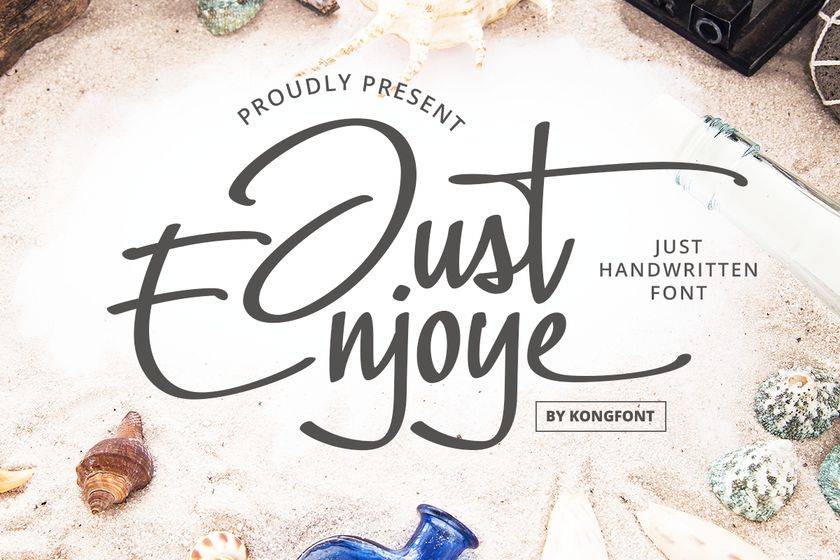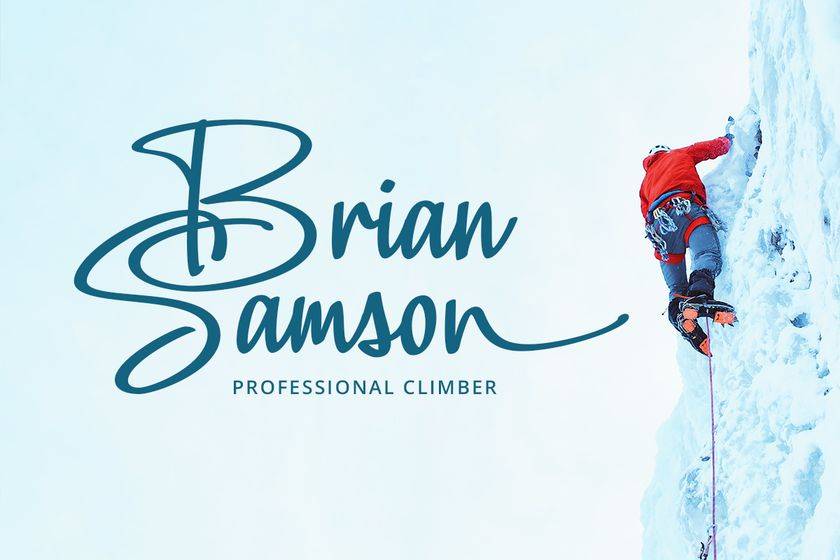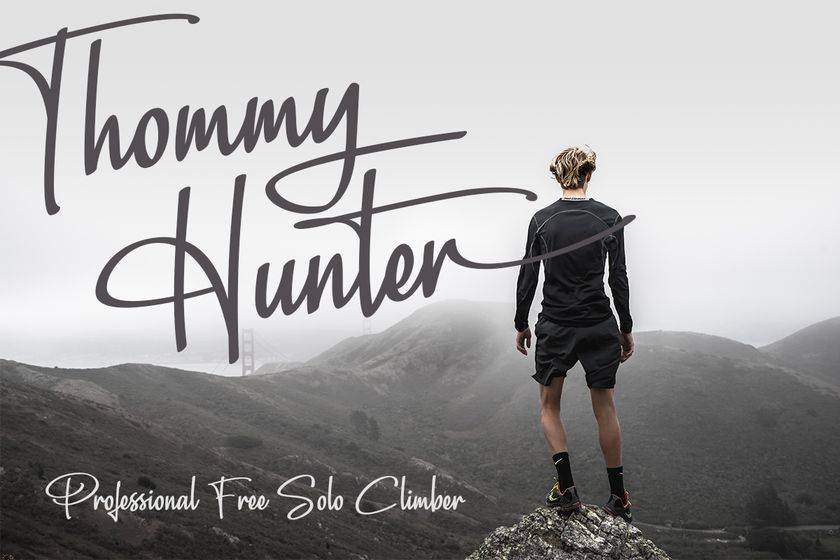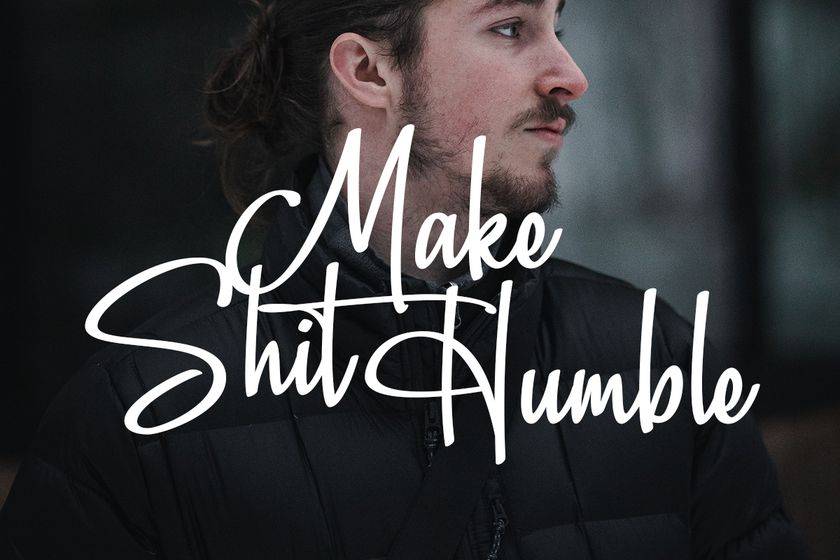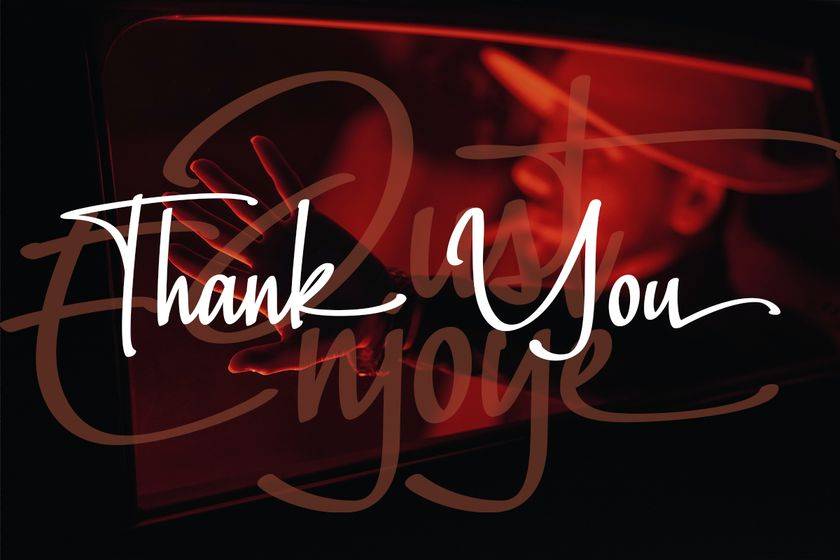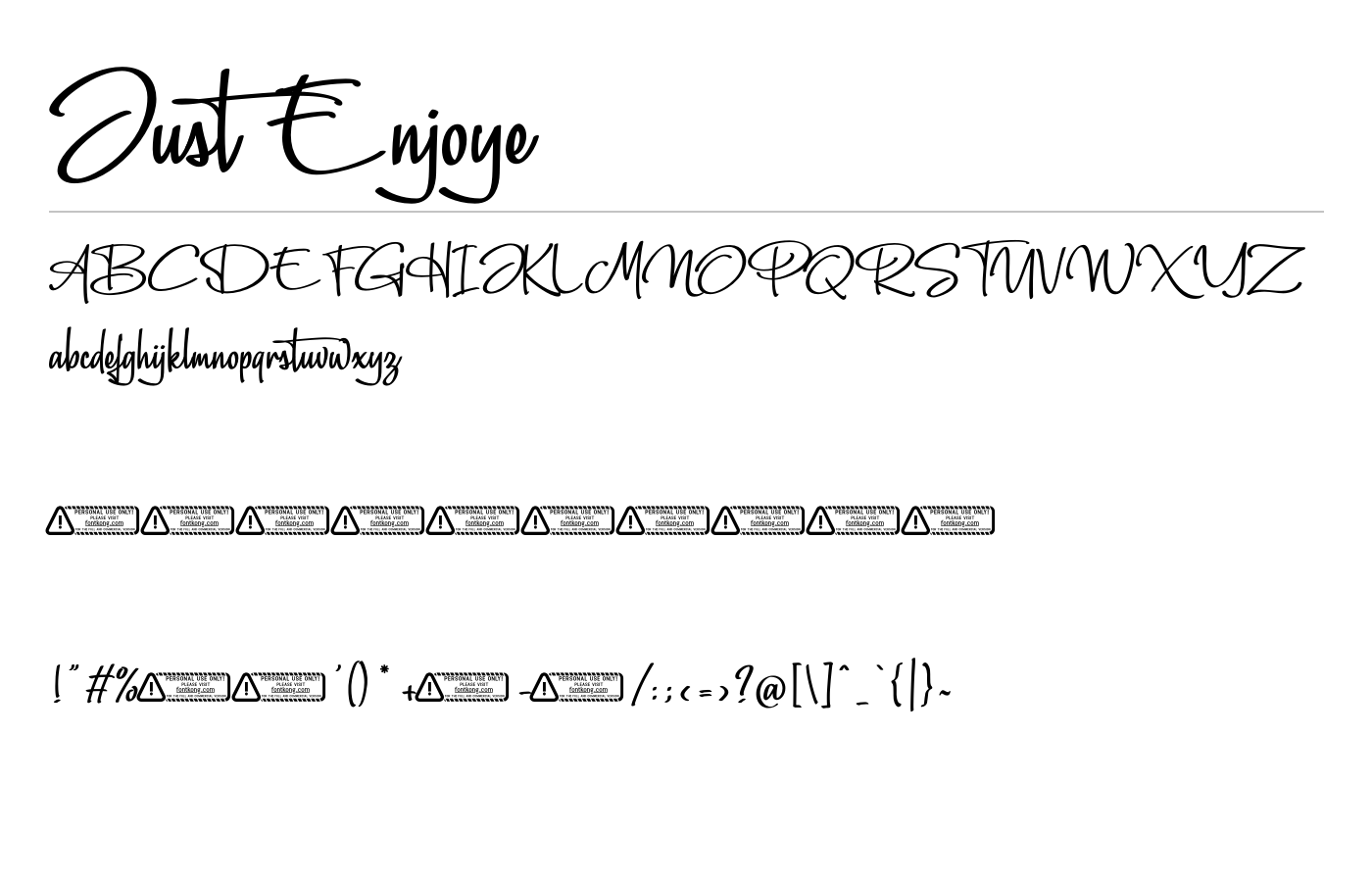
Just Enjoye is a lively and elegant script font with a handwritten feel, featuring smooth, flowing strokes and a casual yet refined style. Its slender, slightly condensed letterforms and distinct uppercase shapes make it perfect for creative designs that require a personal touch, such as branding, invitations, and stylish headlines. This font brings warmth and charm, making it ideal for projects that want to convey friendliness and grace.
Just Enjoye Font